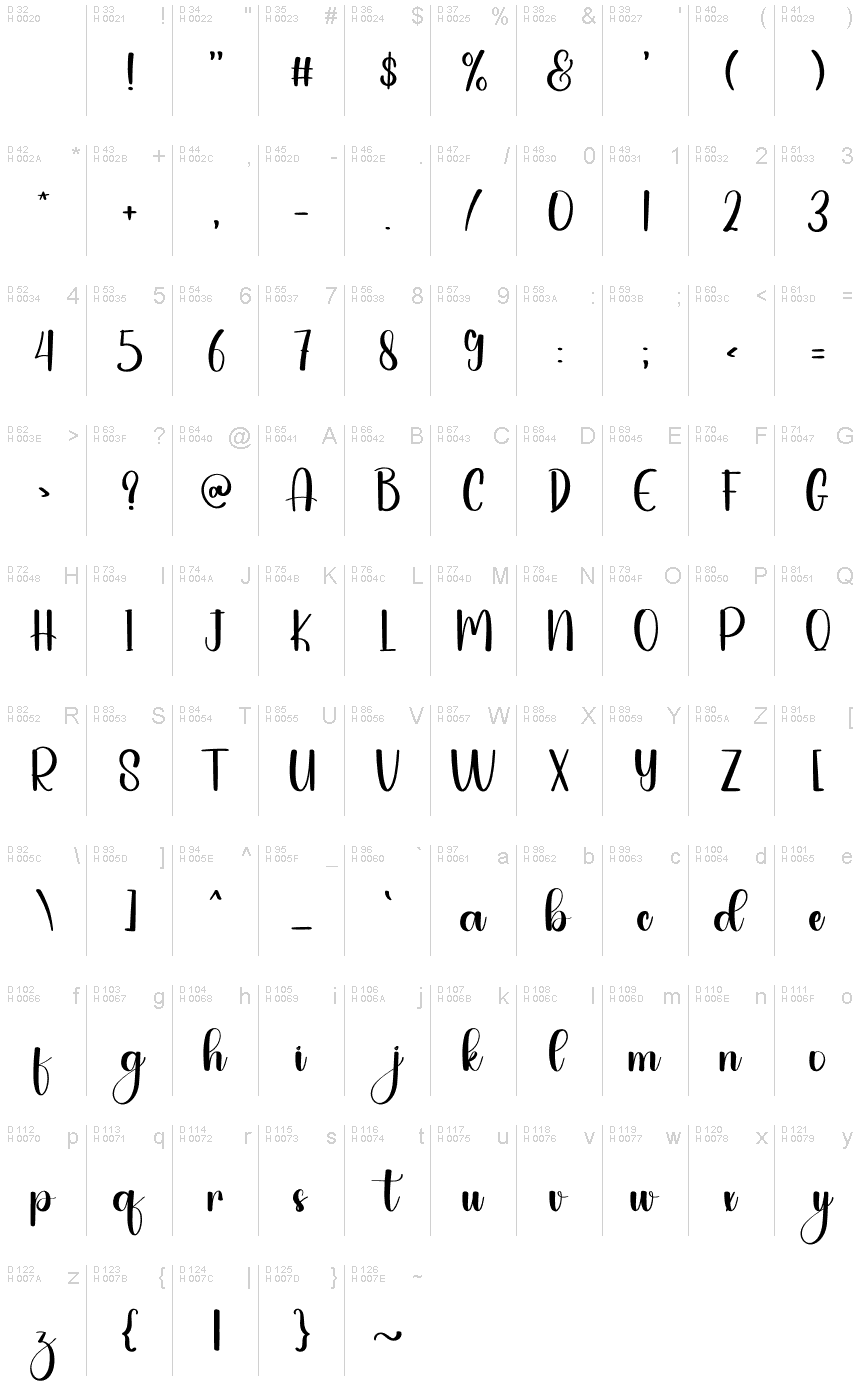
Straight
Straight, a captivating calligraphy font by PiPi Creative. With its semi-light weight and graceful strokes, this font adds an elegant touch to any project.
Perfect for wedding invitations and stationery, Straight exudes romance and sophistication. Its fluid lines also make it ideal for branding and logo design, enhancing the visual appeal of your business. Additionally, Straight's unique charm is well-suited for fashion magazines, creating a stylish and modern look.
Embrace the beauty of calligraphy with Straight – the perfect choice for projects that demand a touch of grace and sophistication.